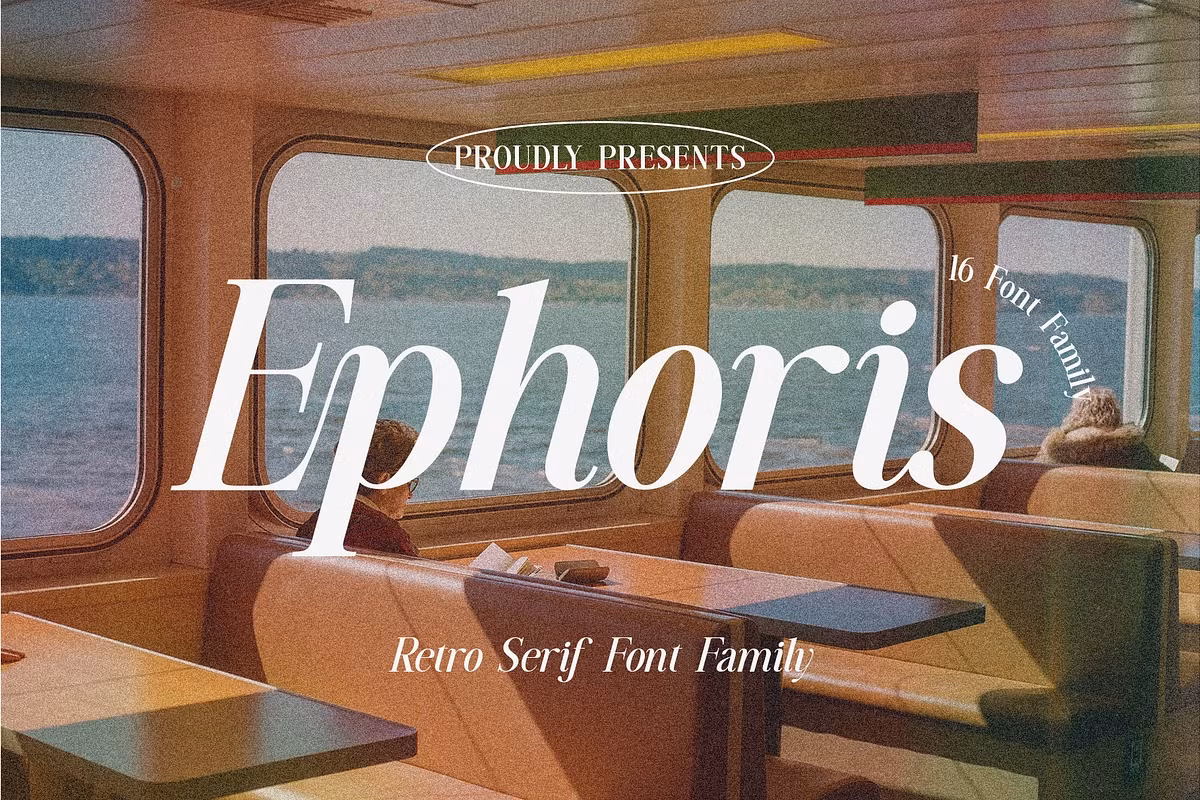
Ephoris || Retro Serif Font Free Download
Ephoris, also known as Euphoria, is an elegant serif typeface designed by Elvina Gafarova. This font combines timeless, classic elements with sharply cut serifs, offering a luxurious and nostalgic vibe. It's particularly well-suited for branding, invitations, business cards, and marketing materials.
• Design: Ephoris features uppercase and lowercase letters, numbers, punctuation, and both regular and italic styles, providing versatility for various design needs.